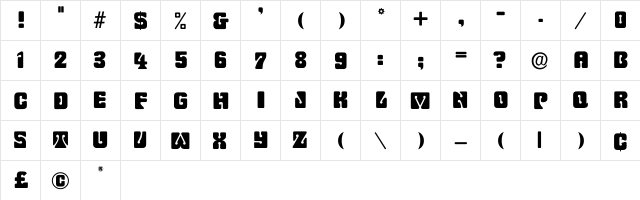
Pinochle-Normal Regular Font Preview
Pinochle-Normal Regular
Pinochle-Normal Regular Font Details
Design Context for Pinochle-Normal Typeface
Pinochle-Normal is a composed and adaptable typeface that performs quietly and consistently across a wide range of design contexts.